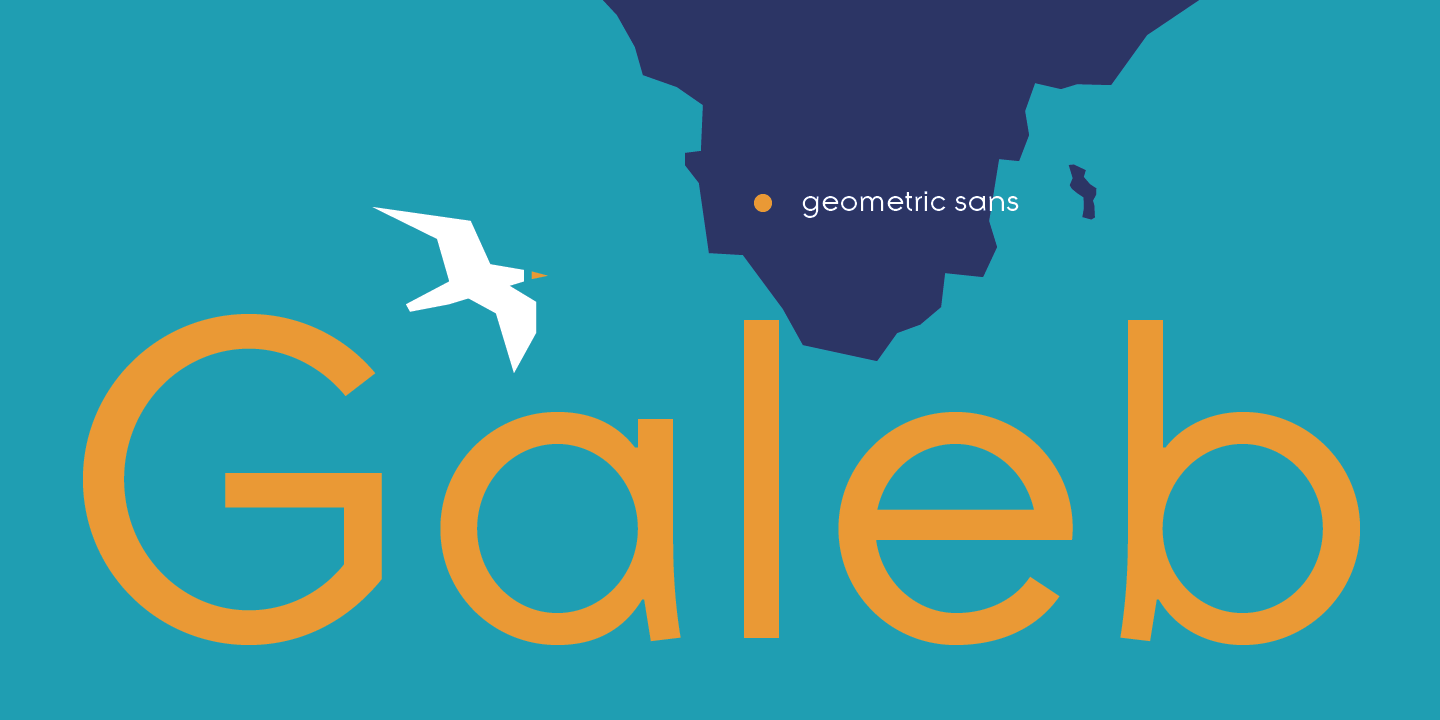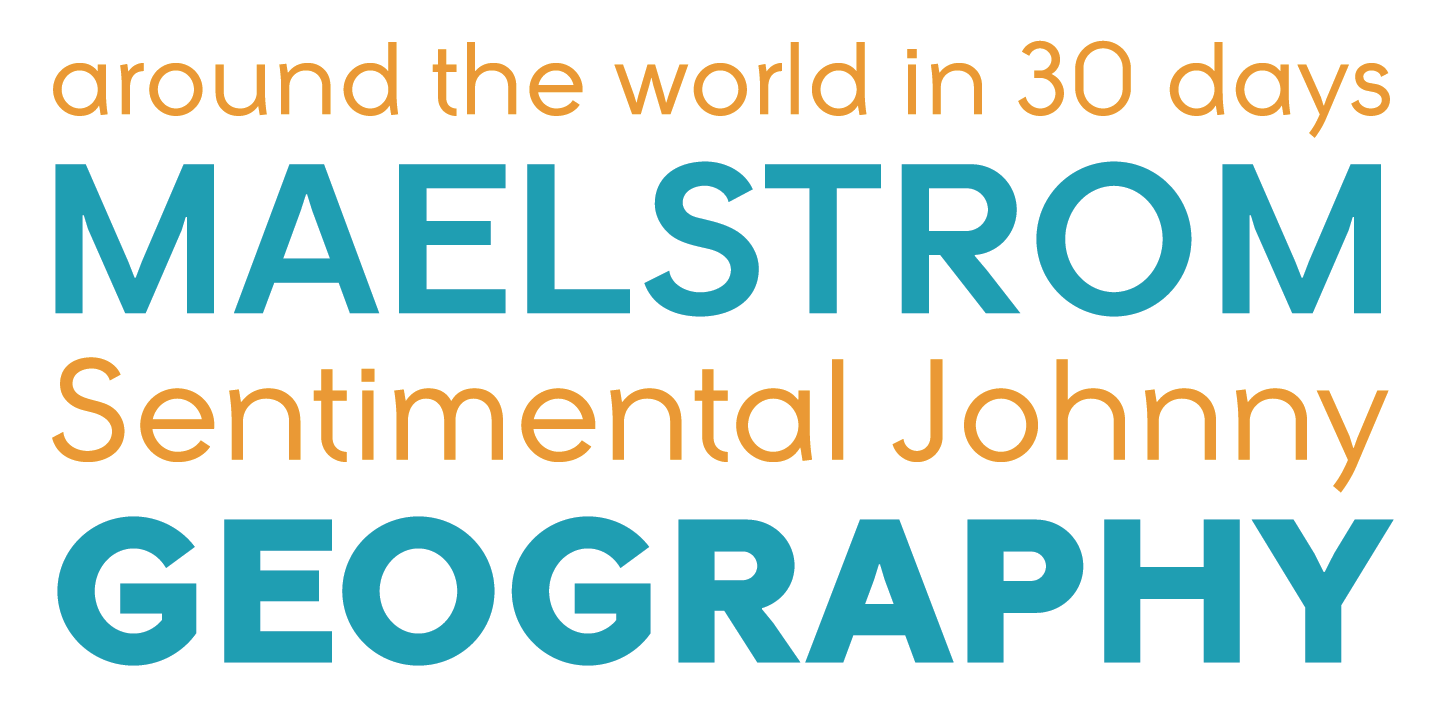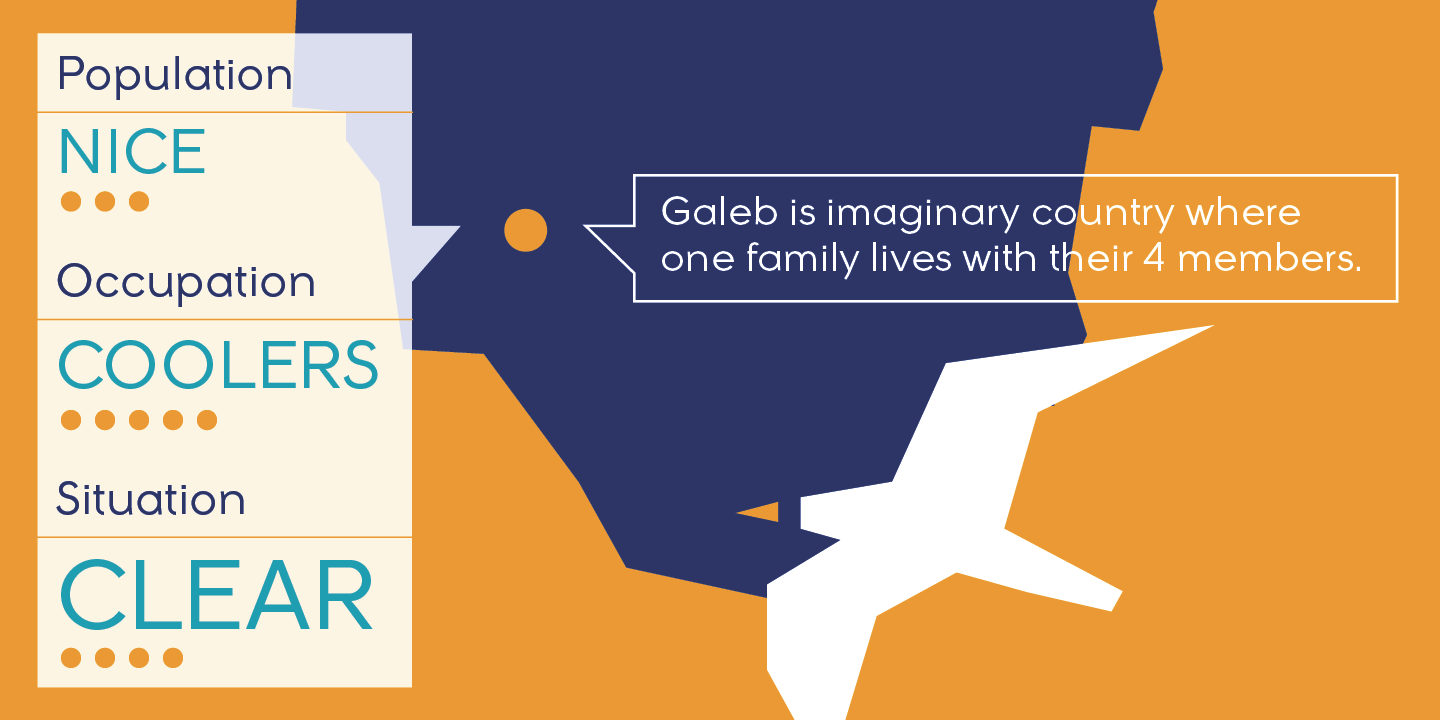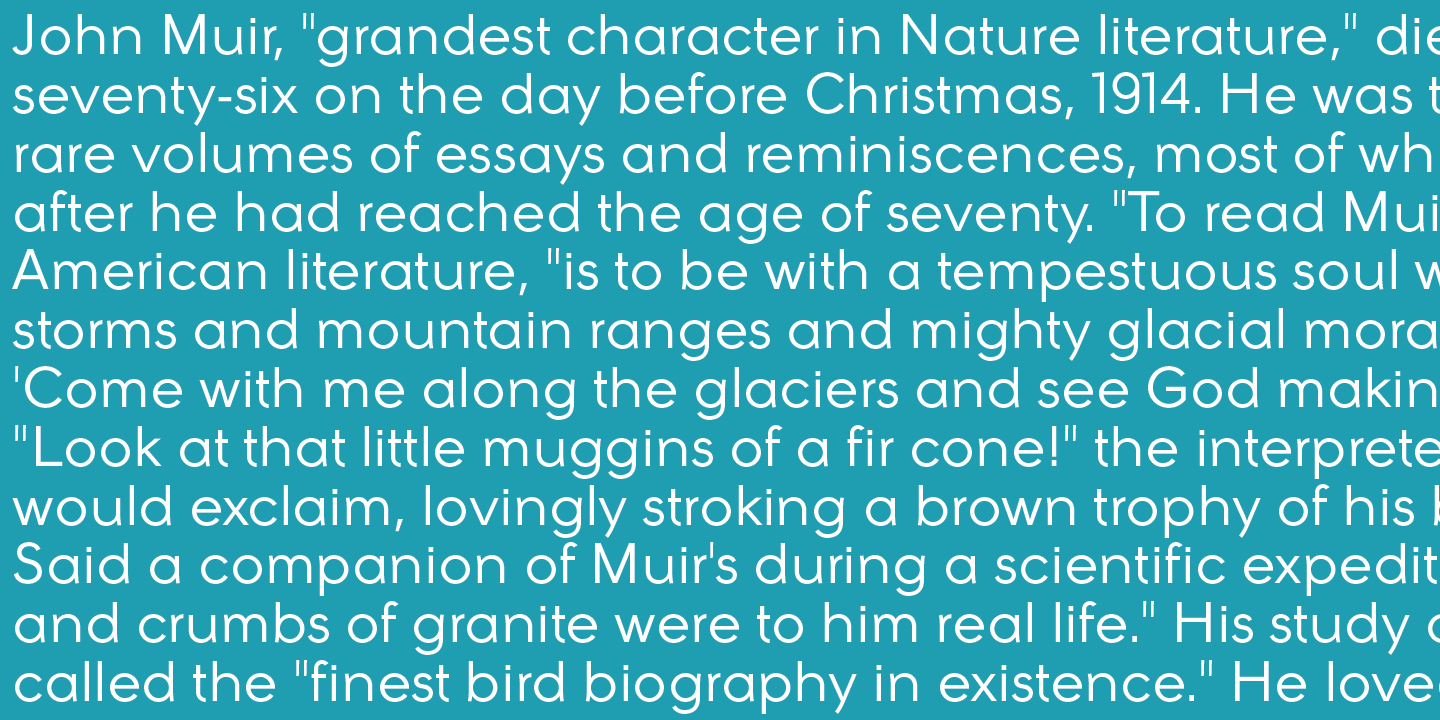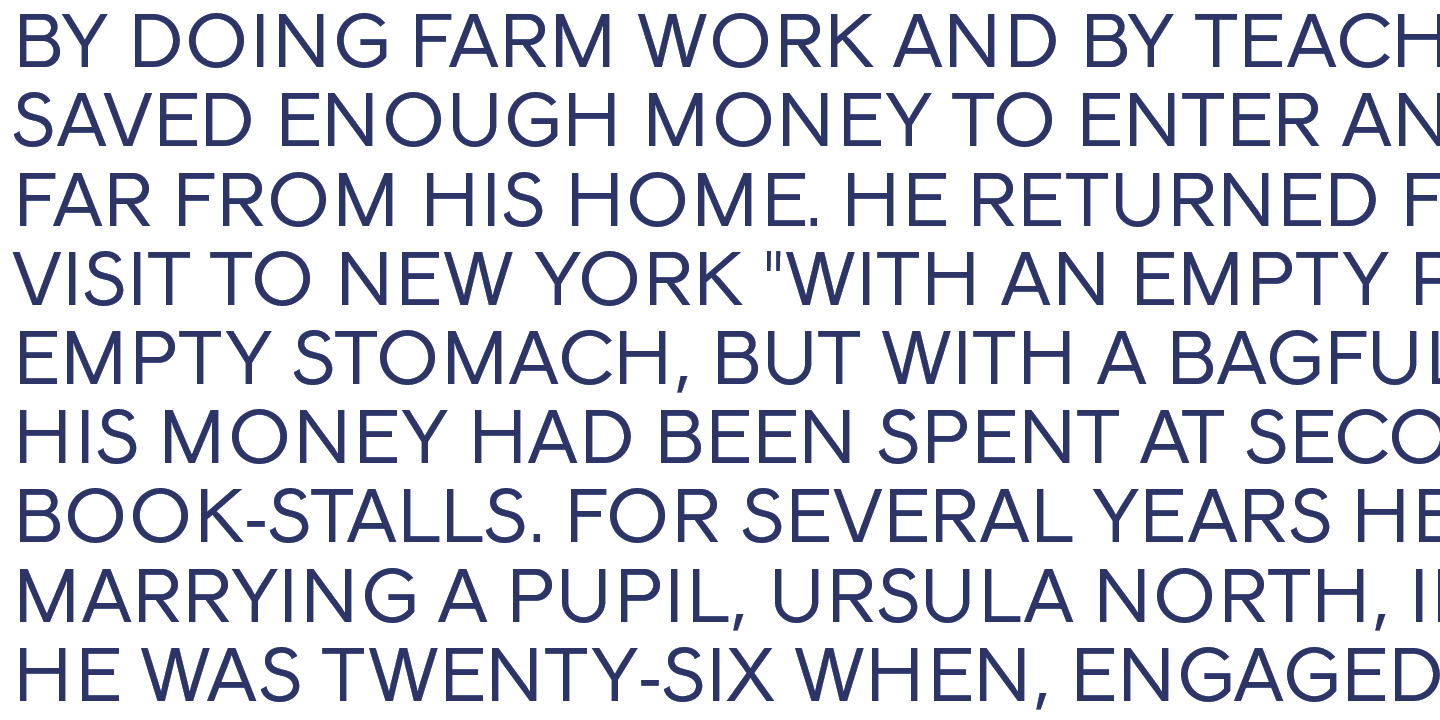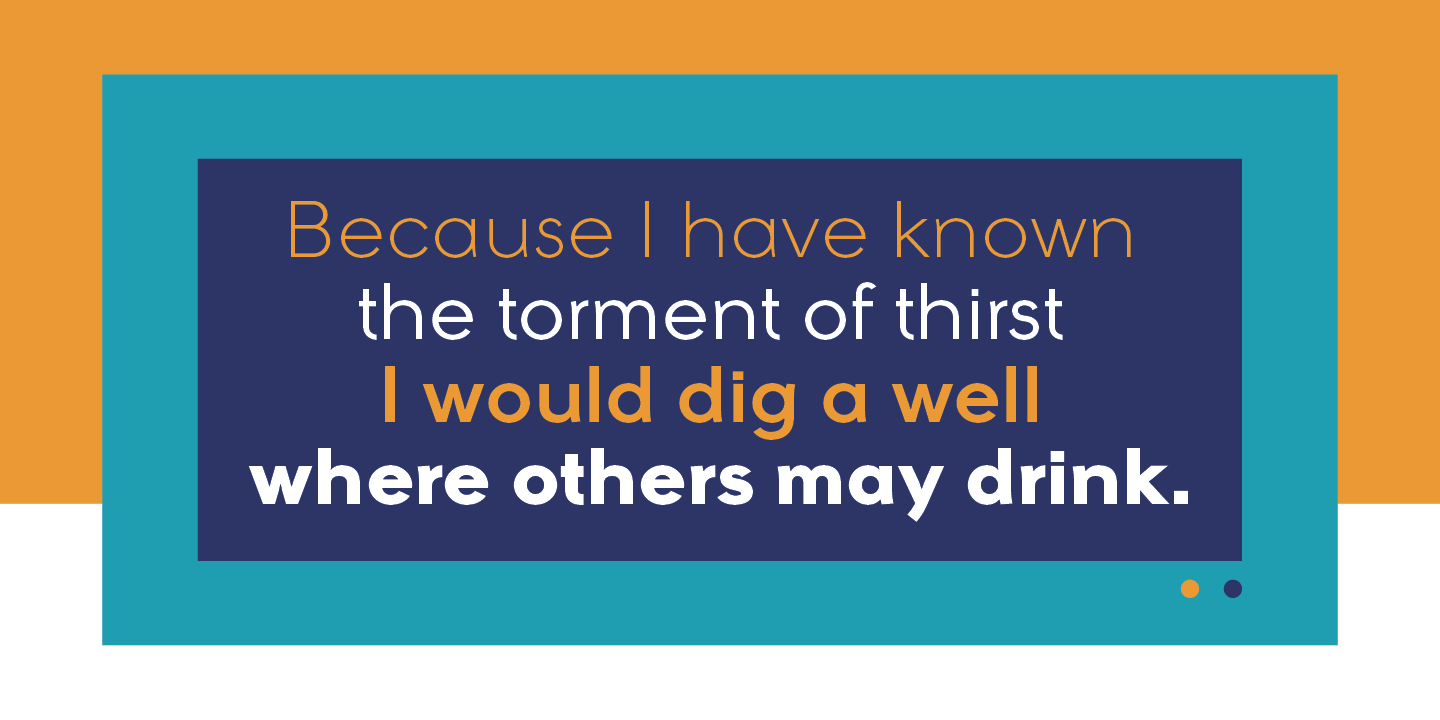
Galeb is simple geometric sans font family in 4 weights - Light, Regular, Bold and Black, ideal for corporate and editorial projects. With angled stem endings, Galeb gives enough impression to be used as display font as well.